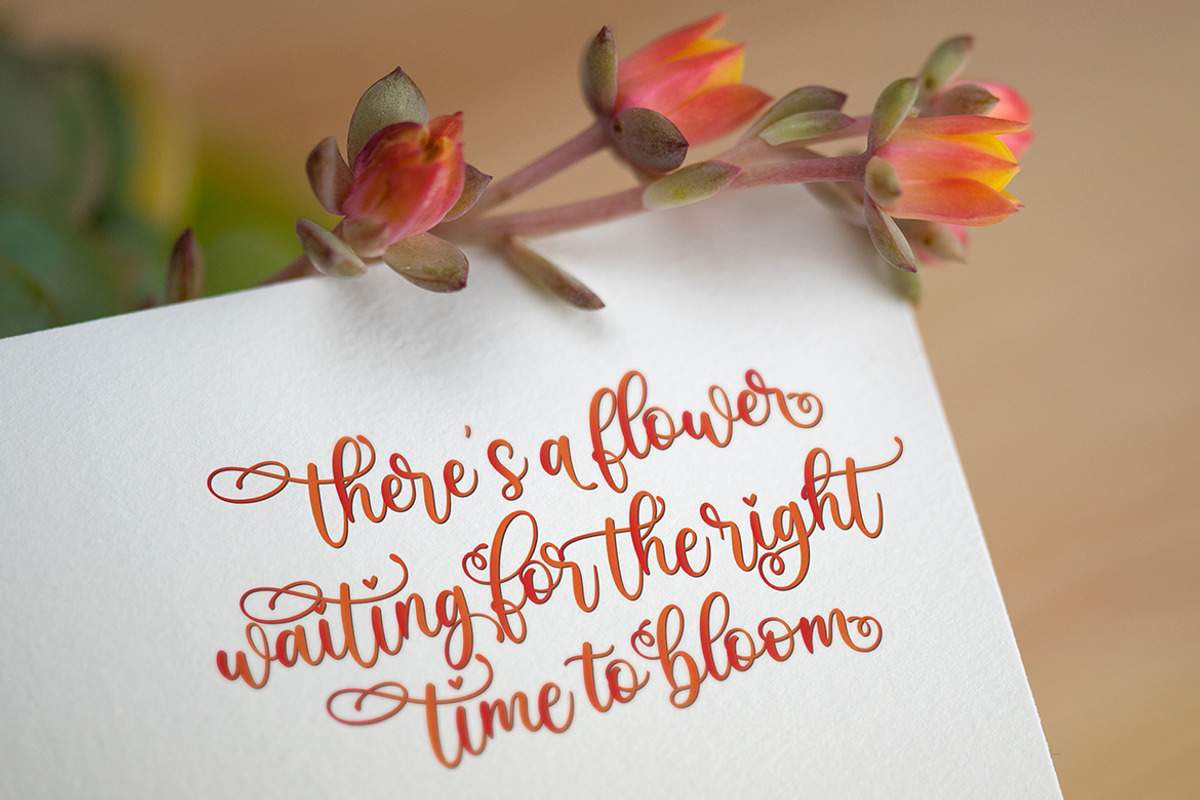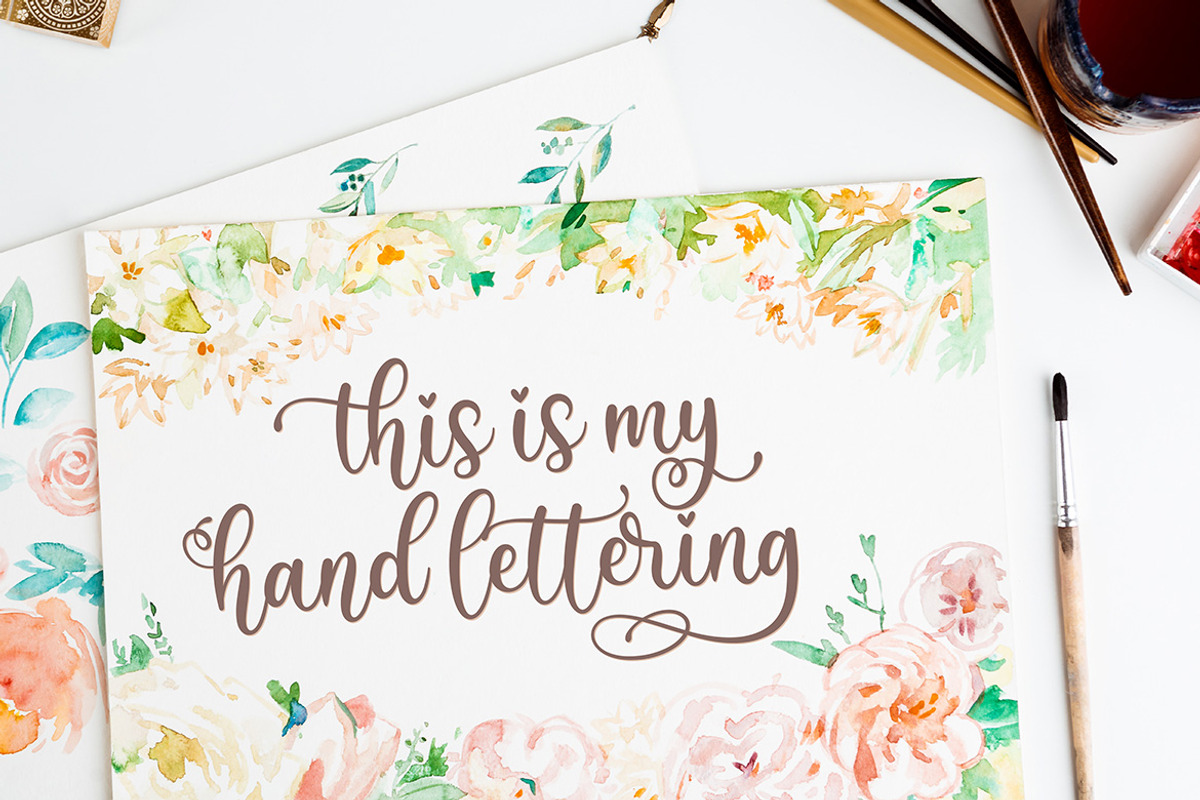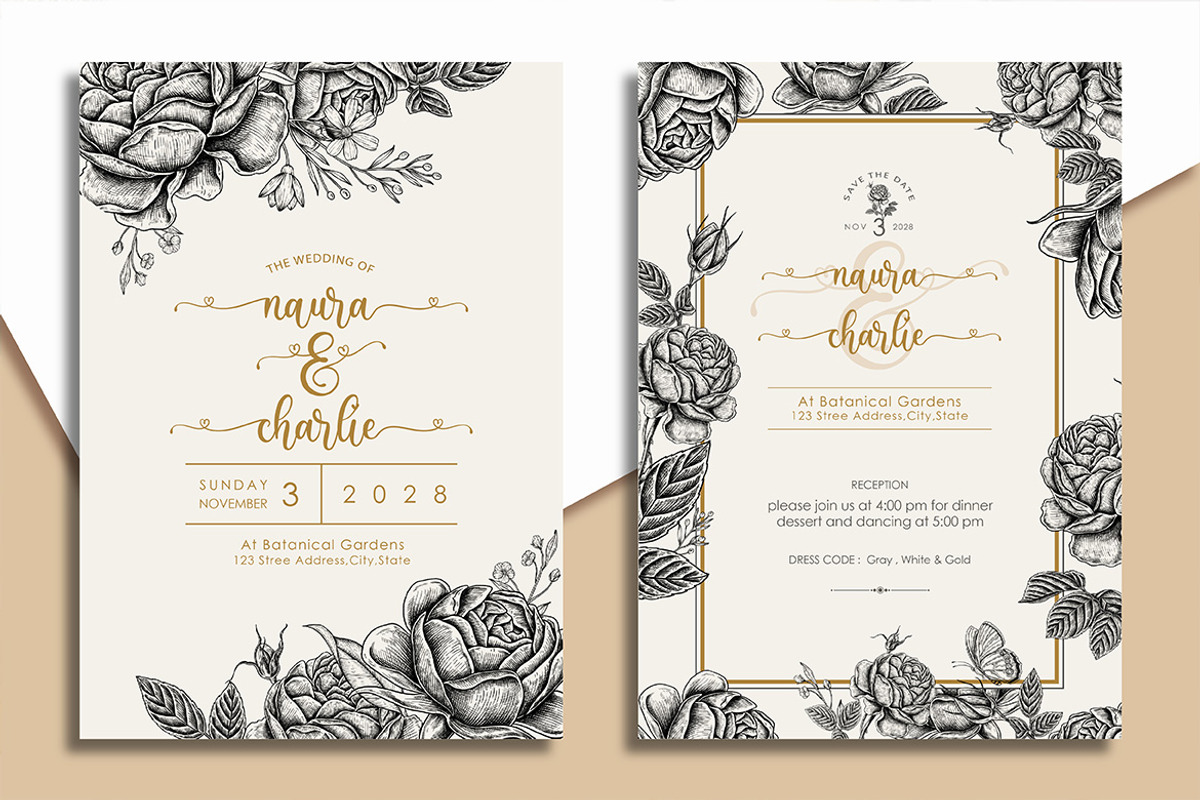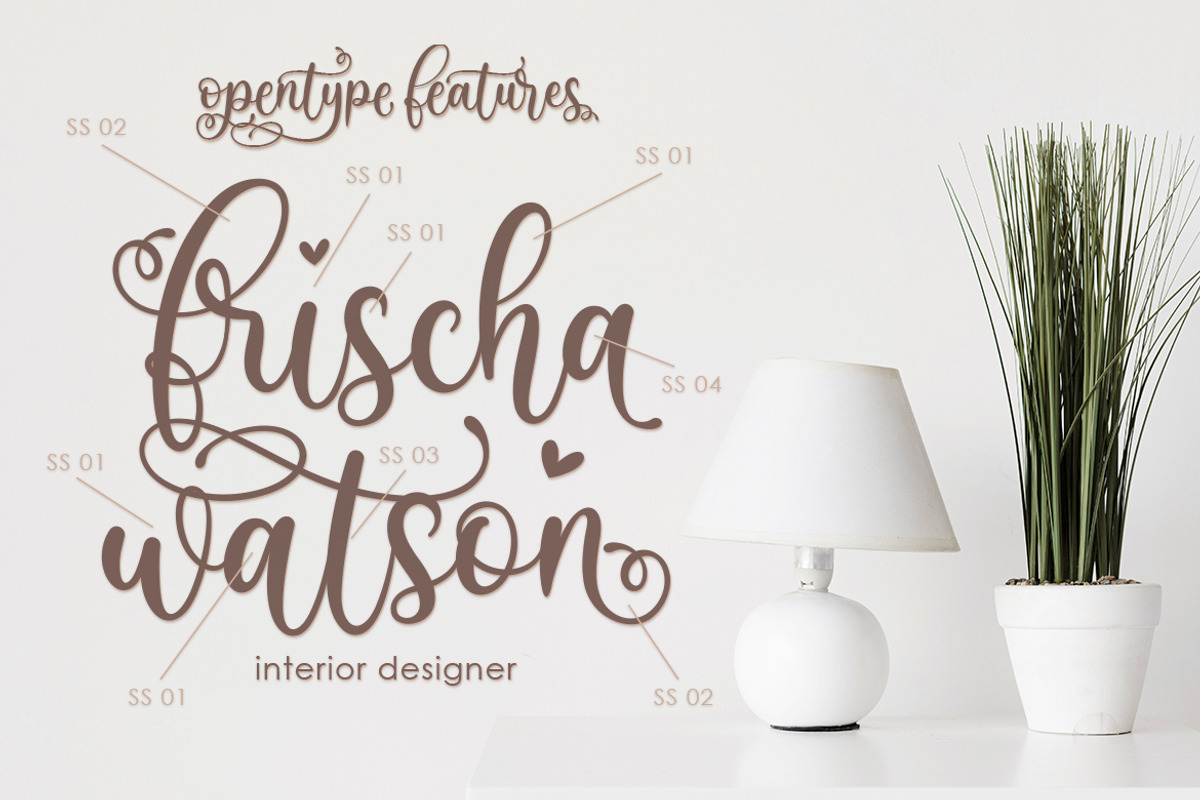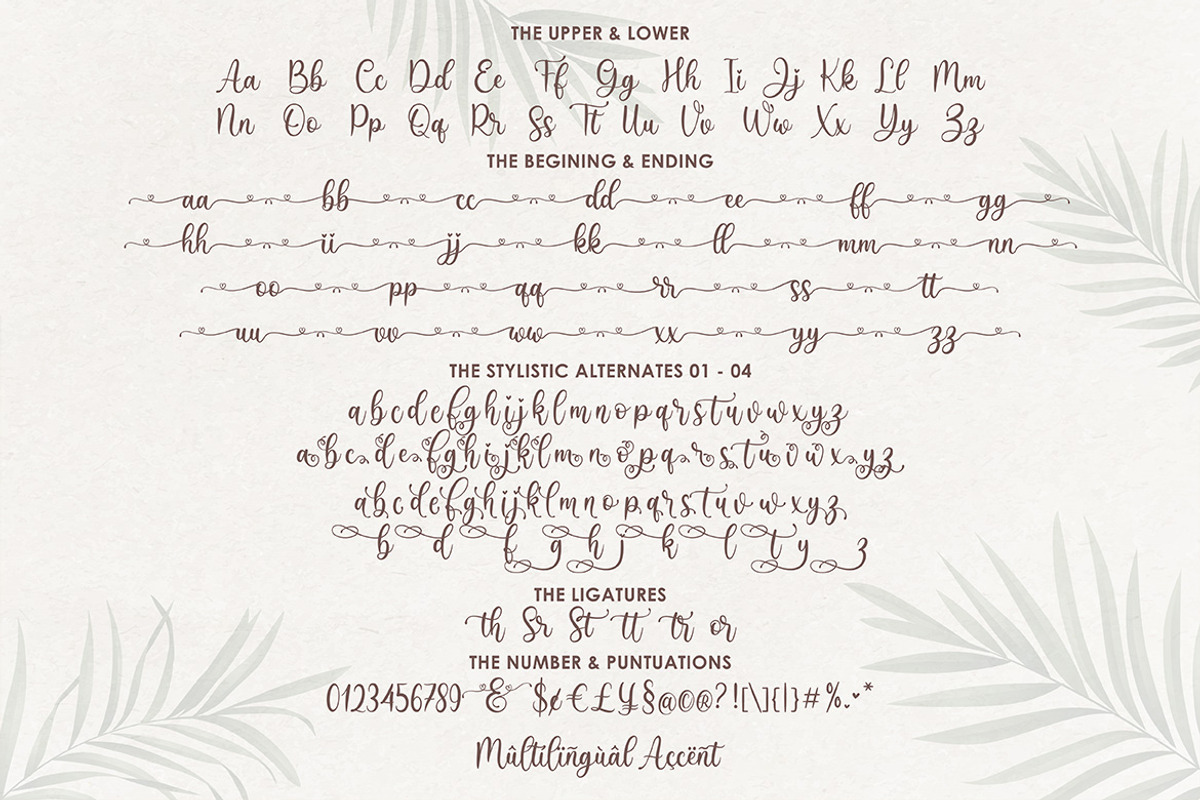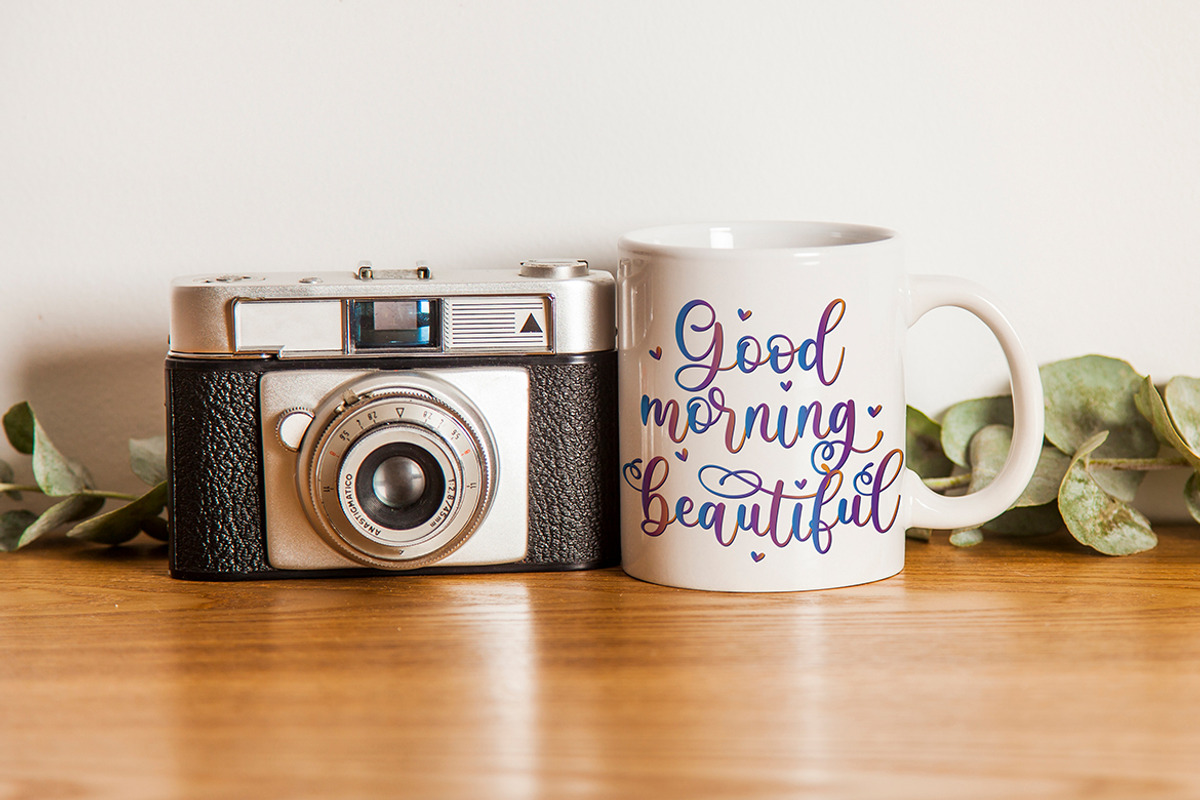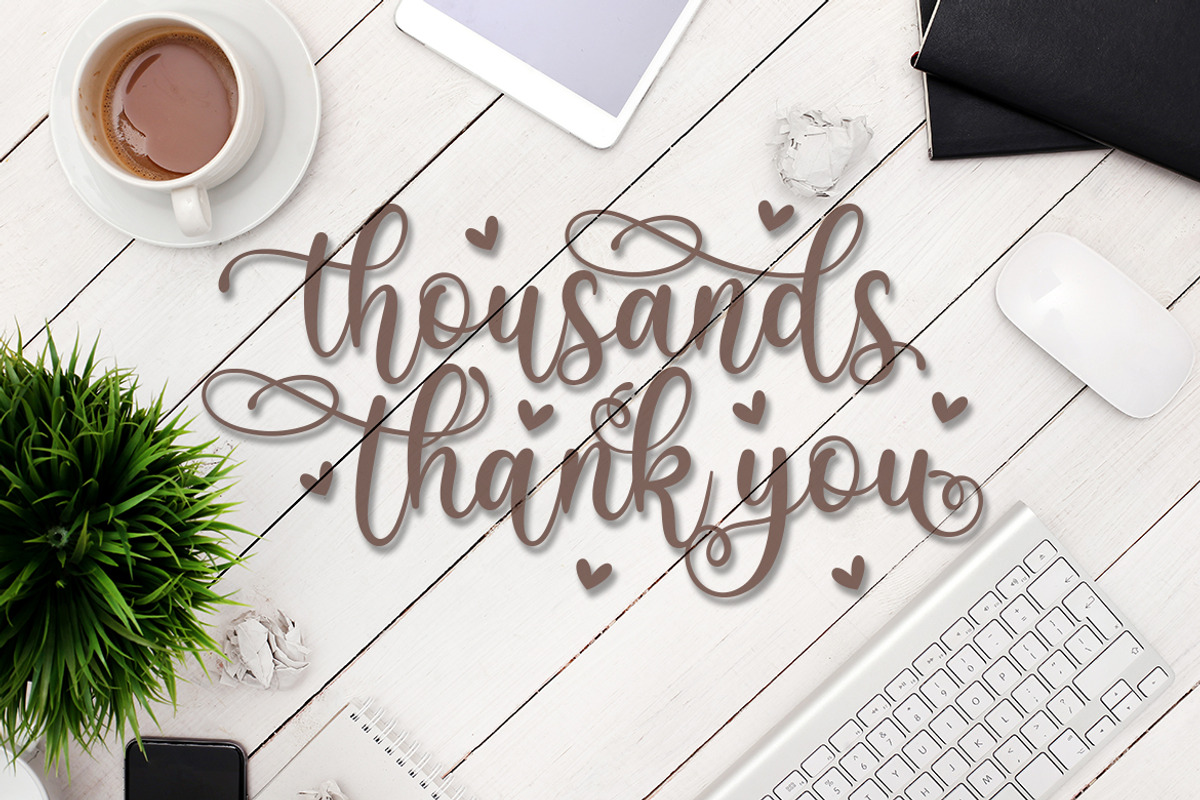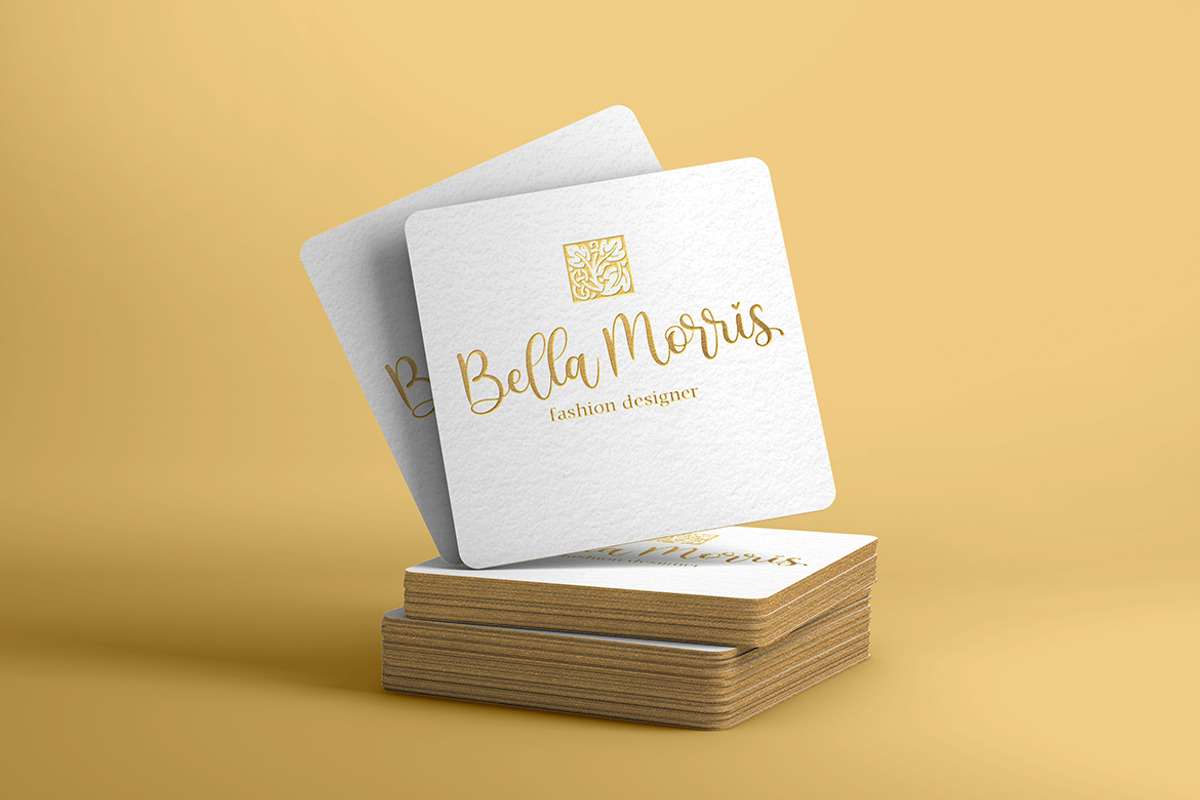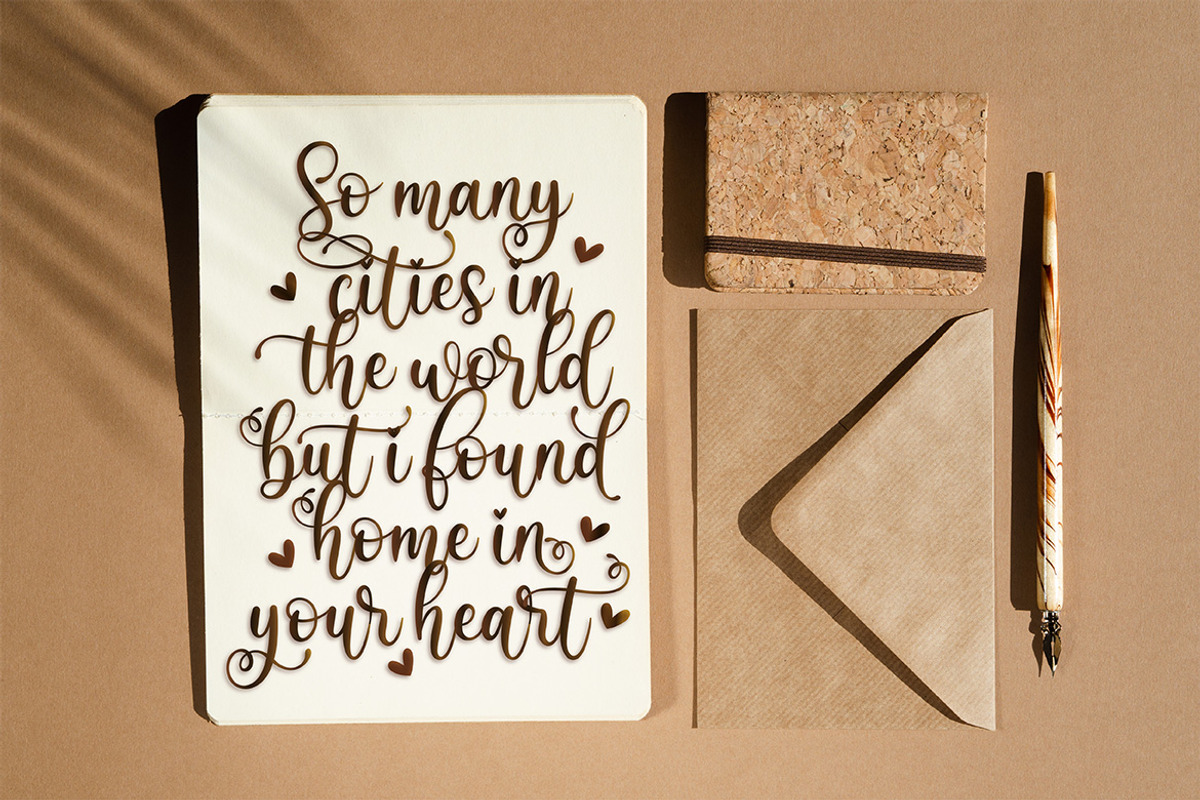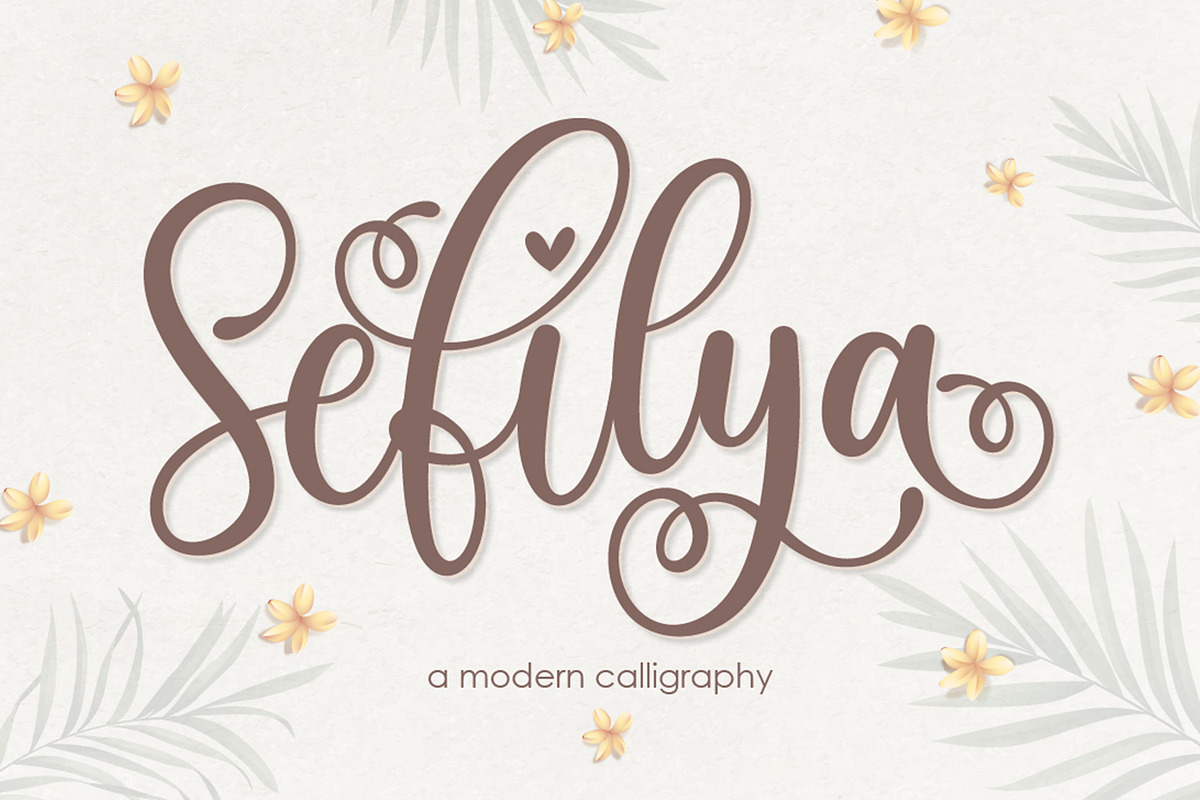
Sefilya | Beauty Script
Sefilya Script is a beautiful script font with many alternative styles, this font looks natural, elegant and perfect for any extraordinary project.Sefilya Script is suitable for various products such as invitations, product packaging, quotes, product design, crafting, labels, photography, watermarks, logos & branding.
- Sefilya Stylistic Alternaters 01 - 04